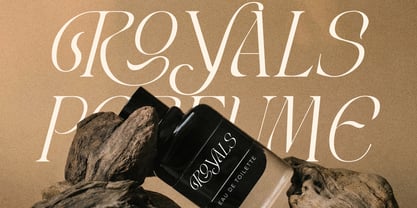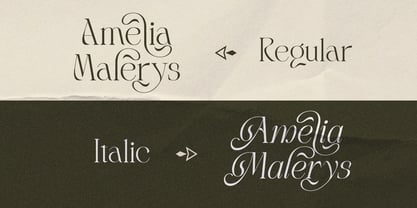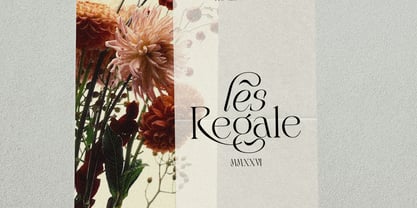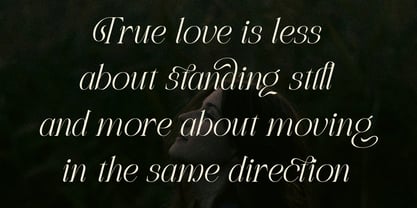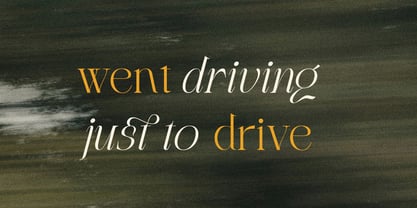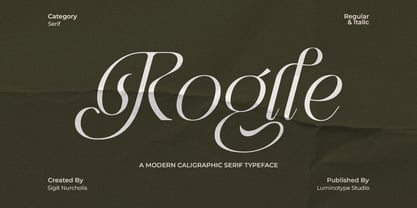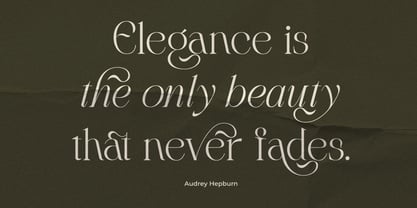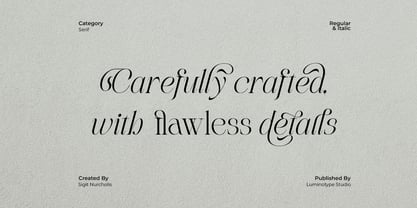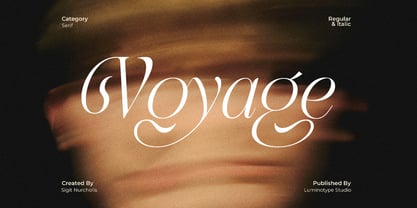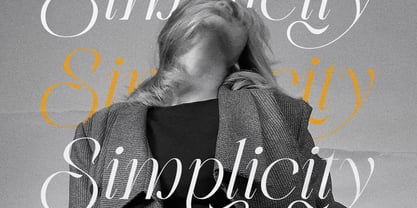
LT Rogile
by Sigit Nurcholis
The LT Rogile Font Family was designed by Sigit Nurcholis and published by Sigit Nurcholis. LT Rogile contains 2 styles and family package options. More about this family
Elevate your creative projects with Rogile, a breathtakingly elegant modern calligraphic serif typeface meticulously crafted with flawless details. Blending the timeless sophistication of classic serifs with sweeping, graceful calligraphic curves, Rogile delivers an effortlessly stylish and luxurious aesthetic. Available in both Regular and Italic styles, this typeface offers smooth contrasts and delicate swashes that instantly command attention. Whether you are aiming for a refined editorial look, a high-end commercial presence, or stunning typography for your fashion brand, Rogile provides the perfect balance of readability and artistic flair, making it the ultimate choice to elevate your visual storytelling.
Best Used In: Rogile is incredibly versatile and serves as the perfect choice for luxury logo designs, premium packaging (such as perfumes and cosmetics), fashion magazine editorials, cinematic movie posters, wedding invitations, elegant quotes, and high-end branding materials.